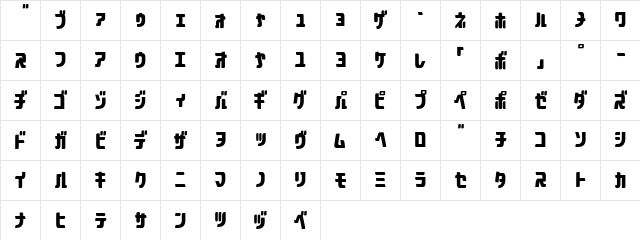
Aquasky20KAT Regular
Design Context for Aquasky20KAT Typeface
Aquasky20KAT is a composed and adaptable typeface that performs quietly and consistently across a wide range of design contexts.